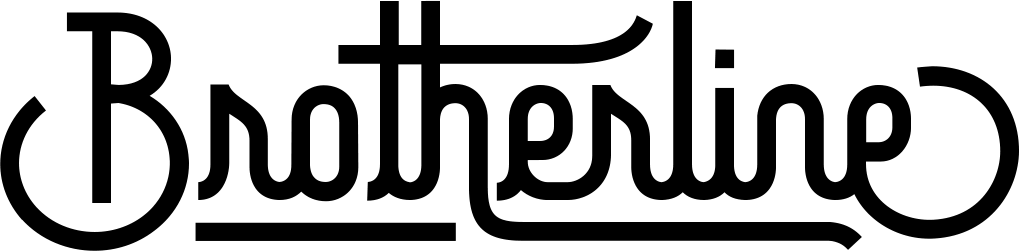
Brotherline Font
Brotherline with mono-line style is perfect for casual situations. Since it’s not that readable, you better not use it for long contexts. But we’re sure this 50s diner font would be awesome for titles, logos, or badges. Hit the download button right now and fascinate your clients. For more travel fonts, head over to Resource Boy.